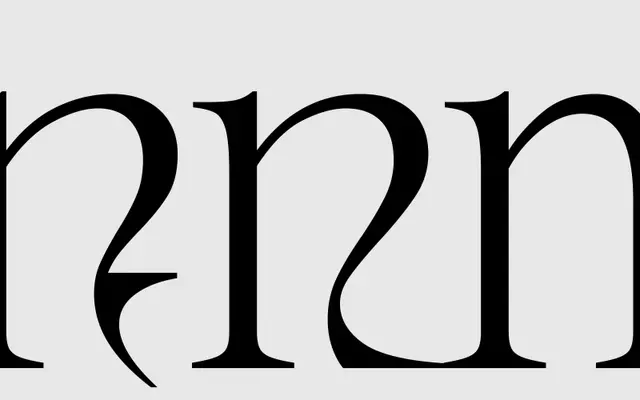
A single-weight serif by Daniel Gremme that draws on Lithuanian culture and architecture to produce letterforms sitting between classical convention and contemporary invention.
Begun during an exchange semester in Vilnius and supervised by Prof. Aušra Lisauskiene and Henning Skibbe, Skanaus exists in two optical styles: Regular and Display. The Display cut adds a set of alternates, including variant g and ß forms, alongside ligatures and fraction support. Its wild, movement-driven details make it most suited to editorial headlines, cultural identities and poster work.
Skanaus blends classical and contemporary genre traits with expressive, unconventional details that push it toward display territory; its described 'romance and movement' across the glyph set aligns with a decorative or lyrical serif sensibility.